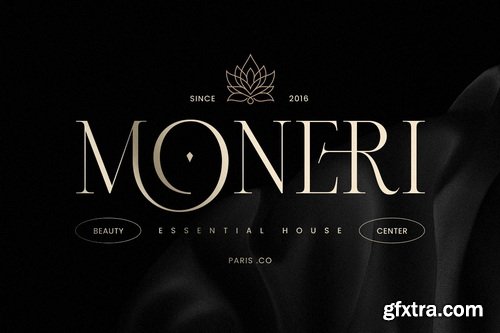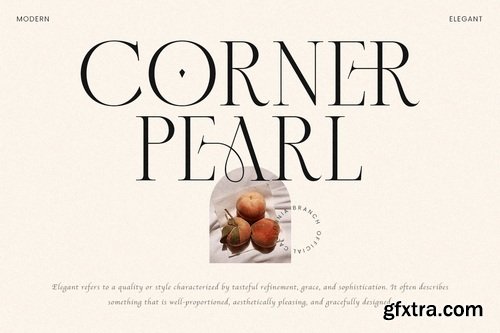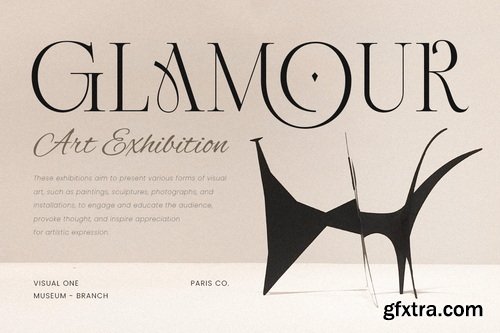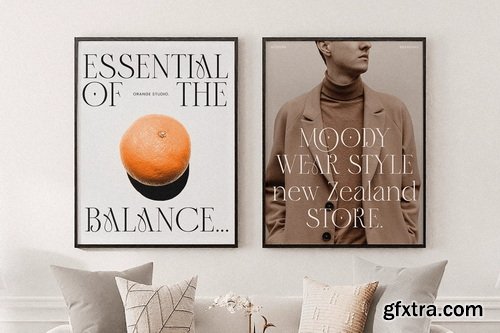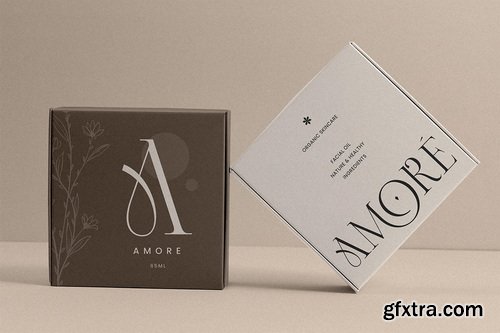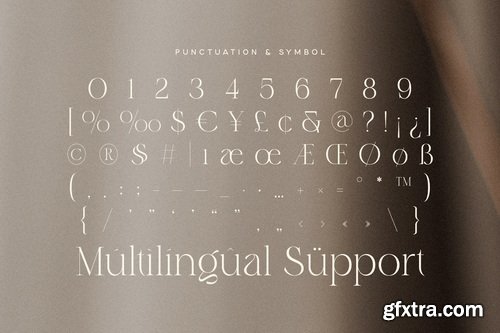
Parode is a font that exudes luxury and elegance, making it the perfect choice for sophisticated logo designs and high-end branding. Inspired by classic typography with a modern twist, Parode brings a touch of refinement to any project. Its sleek and stylish characters are crafted to stand out, ensuring your brand leaves a memorable impression. Parode comes equipped with a full set of punctuation, numbers, and symbols, as well as both uppercase and lowercase letters. It supports multiple languages, making it a global asset for your design toolkit. Available in various file formats, Parode integrates seamlessly with your favorite design software, offering endless creative possibilities.